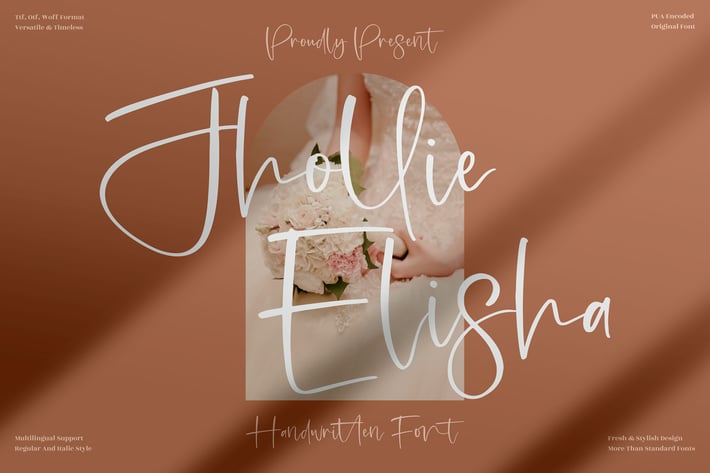
Jhollie Elisha Modern Handwritten Font
Jhollie Elisha Modern Handwritten is an elegant signature-style font crafted with smooth, flowing strokes and a refined handwritten feel. Its soft curves and airy letterforms create a modern, graceful aesthetic perfect for designers looking to add a romantic, upscale, or personal touch to their visuals. With its balanced rhythm and natural pen-pressure look, this font brings sophistication and warmth to any creative project.
Modern handwritten signature style
Smooth, soft letterforms with natural pen flow
Refined curves for a premium and elegant feel
Includes Regular & Italic styles
Soft, elegant, and beautifully expressive — Jhollie Elisha brings luxurious handwritten warmth to every design.